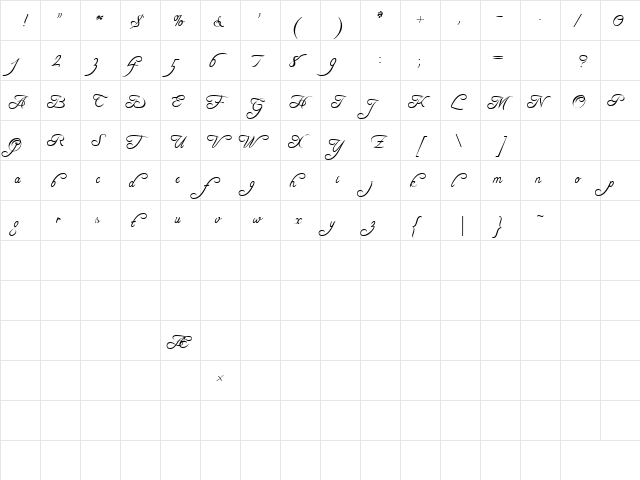
FreeScript DEMO Regular
Design Context for FreeScript DEMO Typeface
FreeScript DEMO flows with the natural rhythm of handwritten lettering, making it ideal for designs that call for warmth and personal expression.
Font Pairing: Combine FreeScript DEMO with a simple geometric sans for maximum contrast — the tension between flowing curves and clean structure is a classic typographic pairing.
Pro Tip: Use FreeScript DEMO for short runs of text — names, titles, or taglines. Extended body copy in script faces tires the eye quickly.